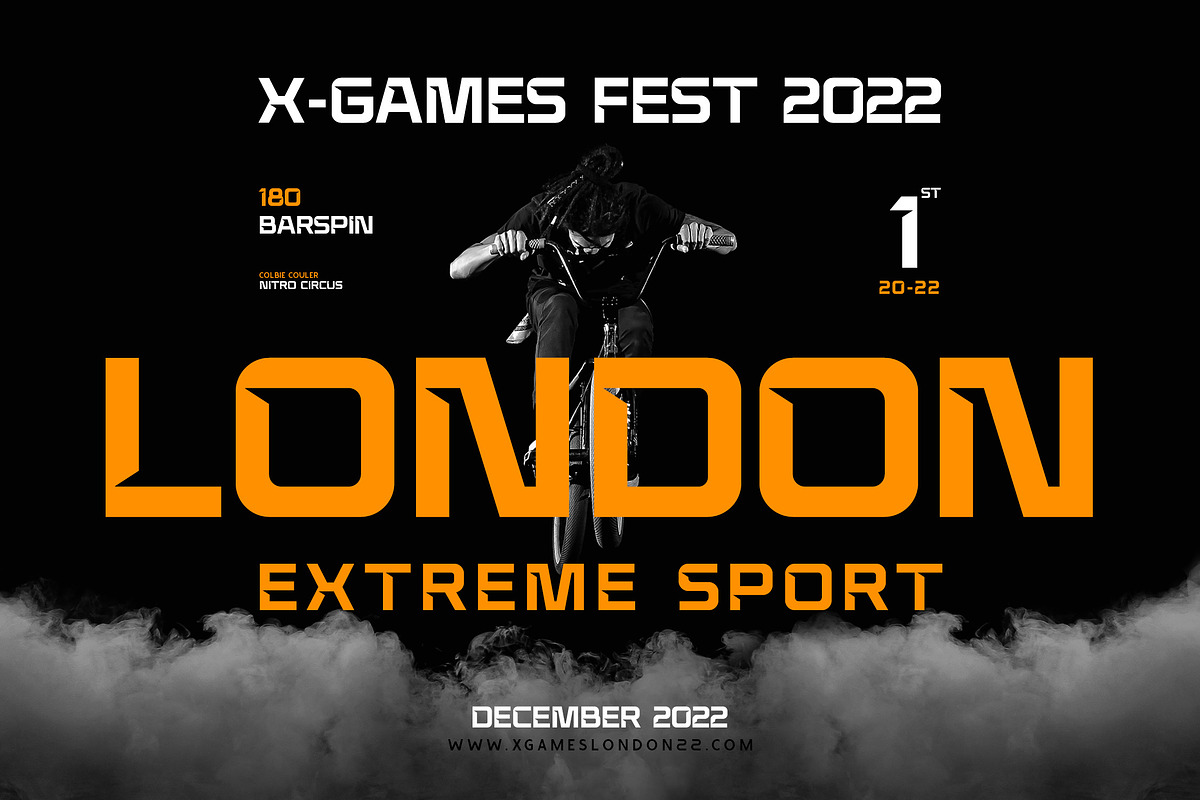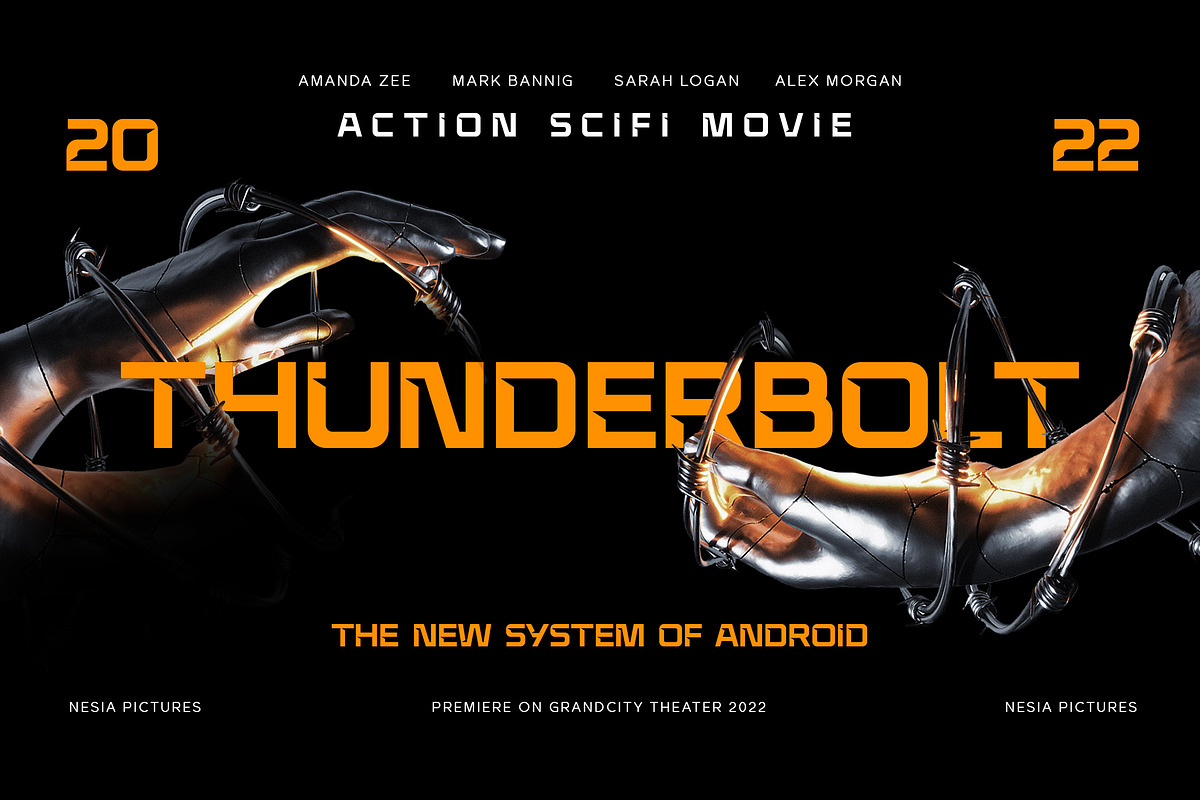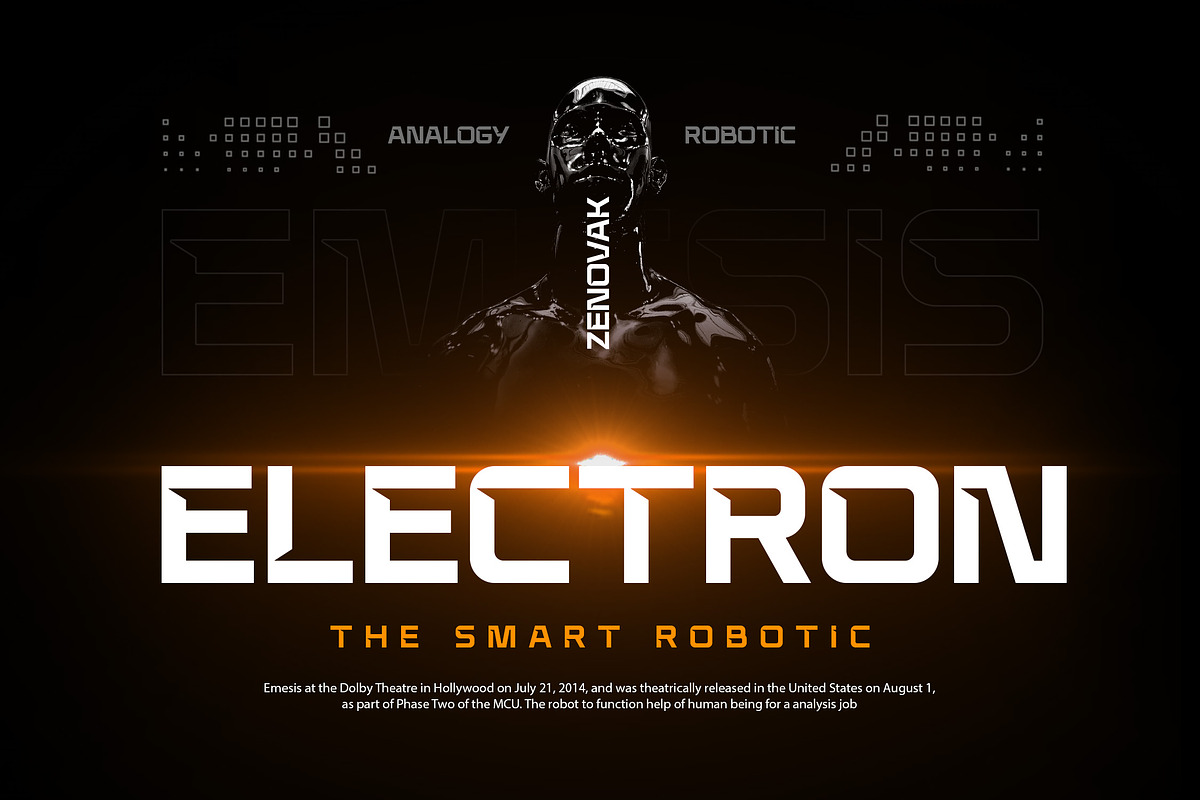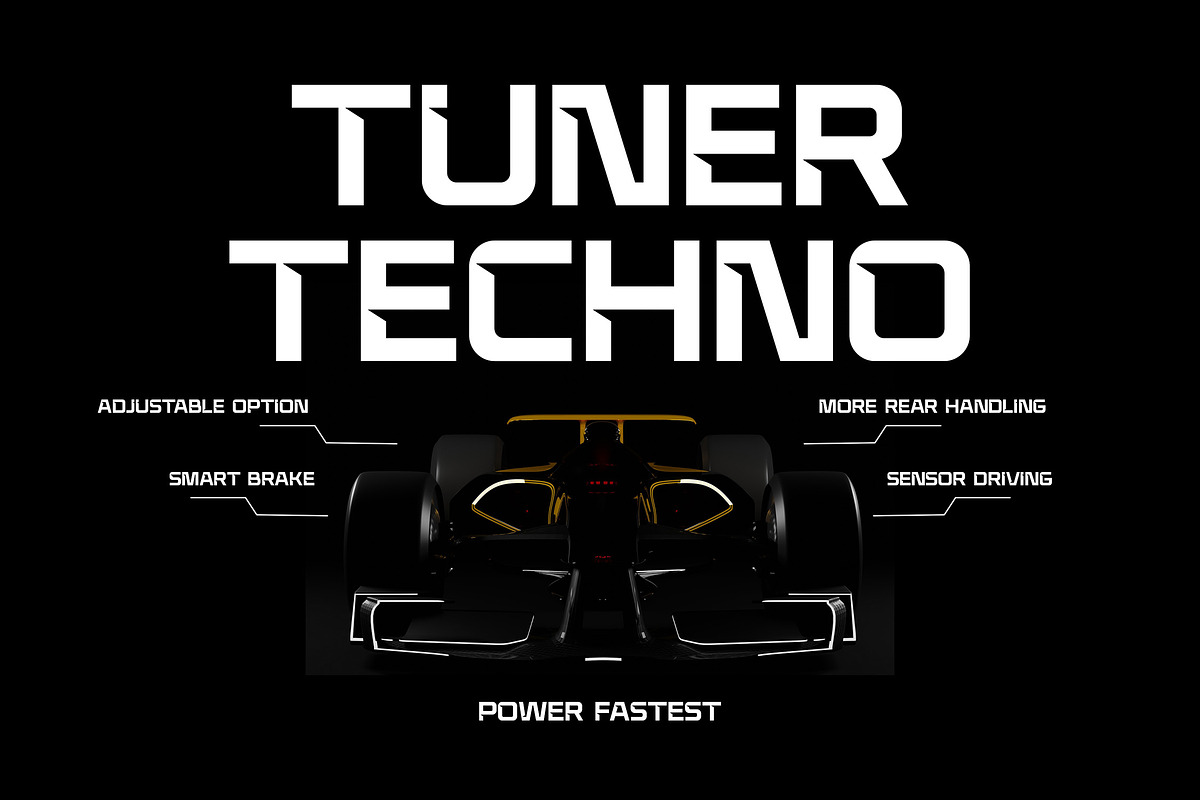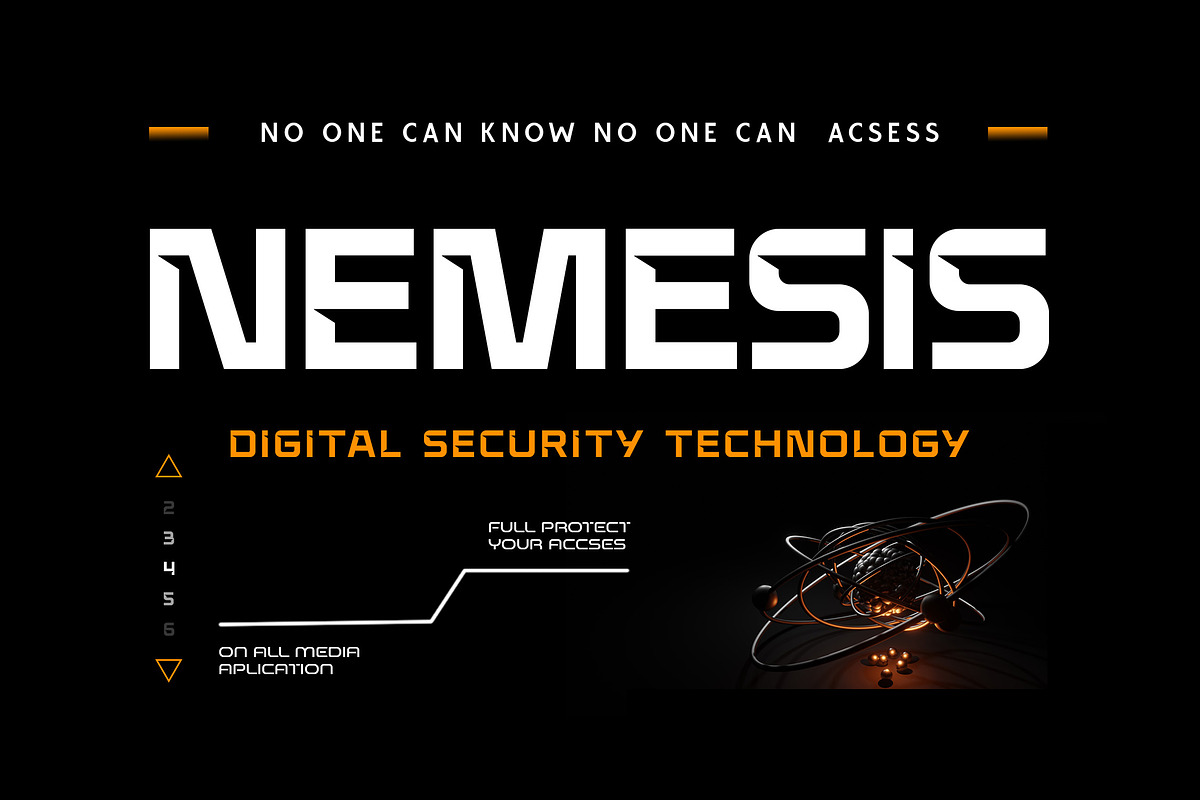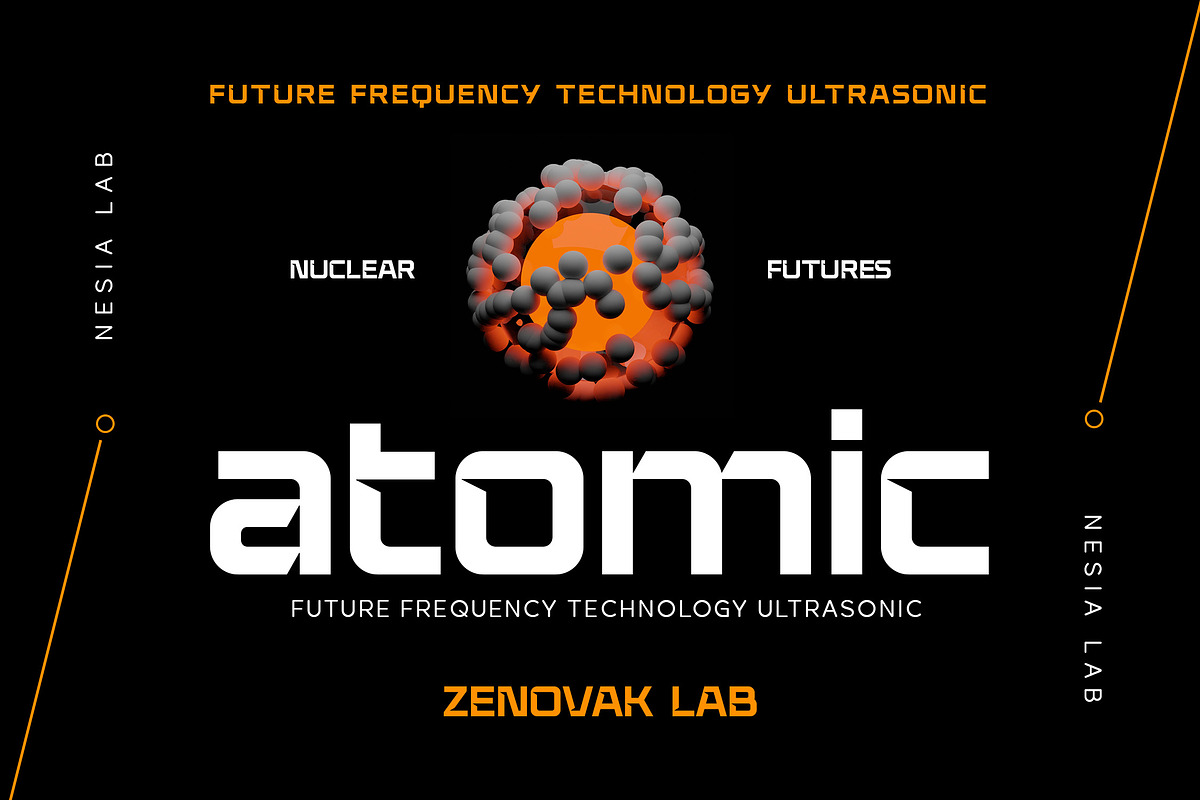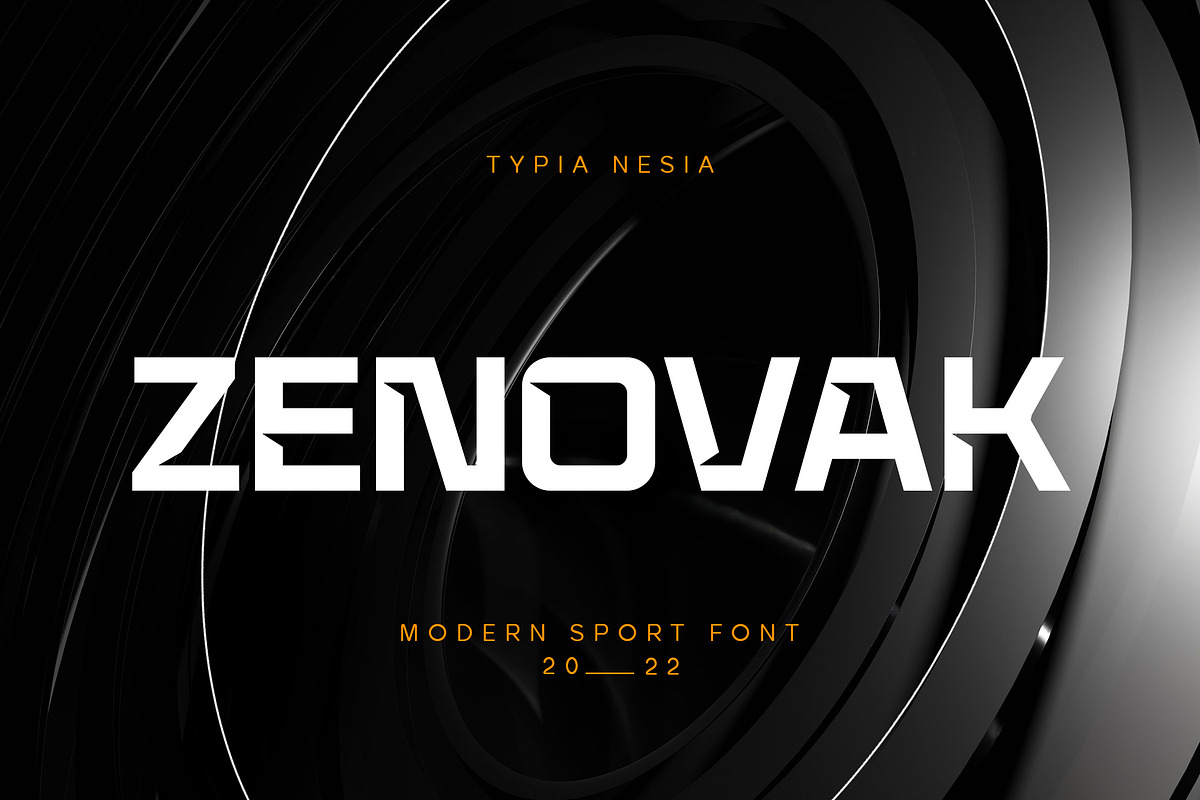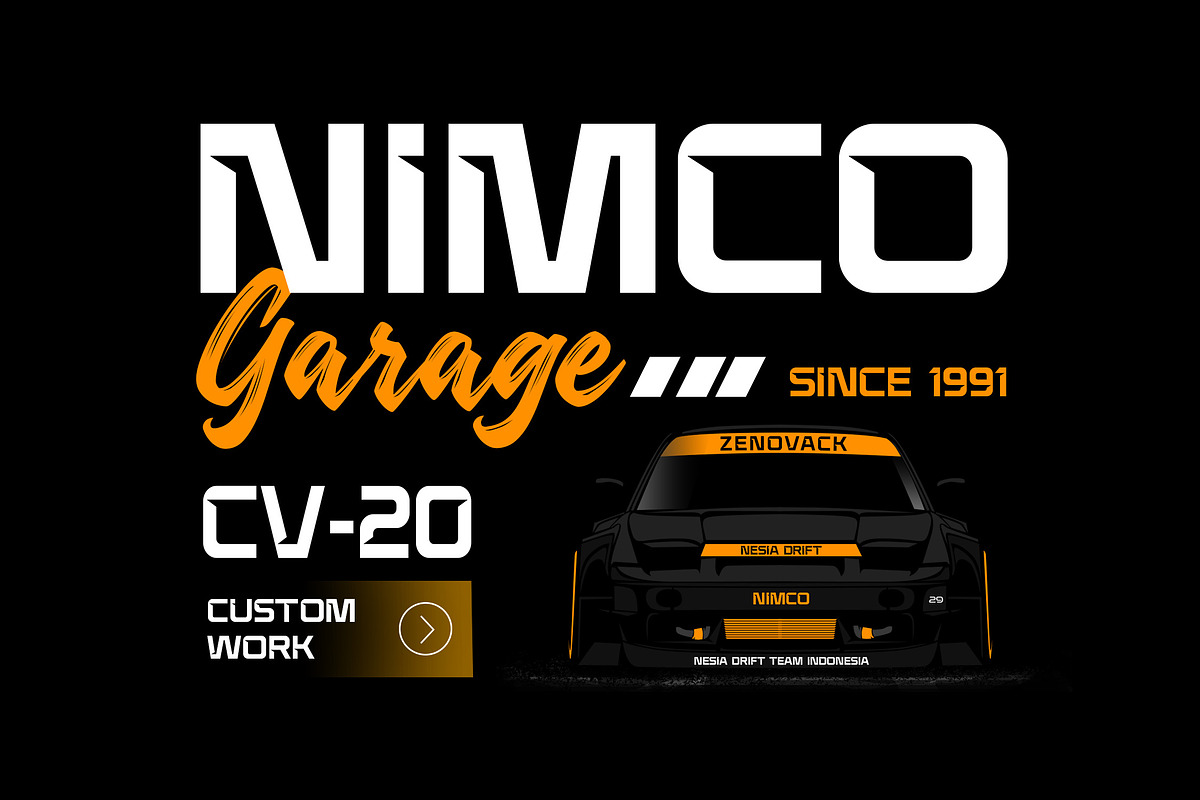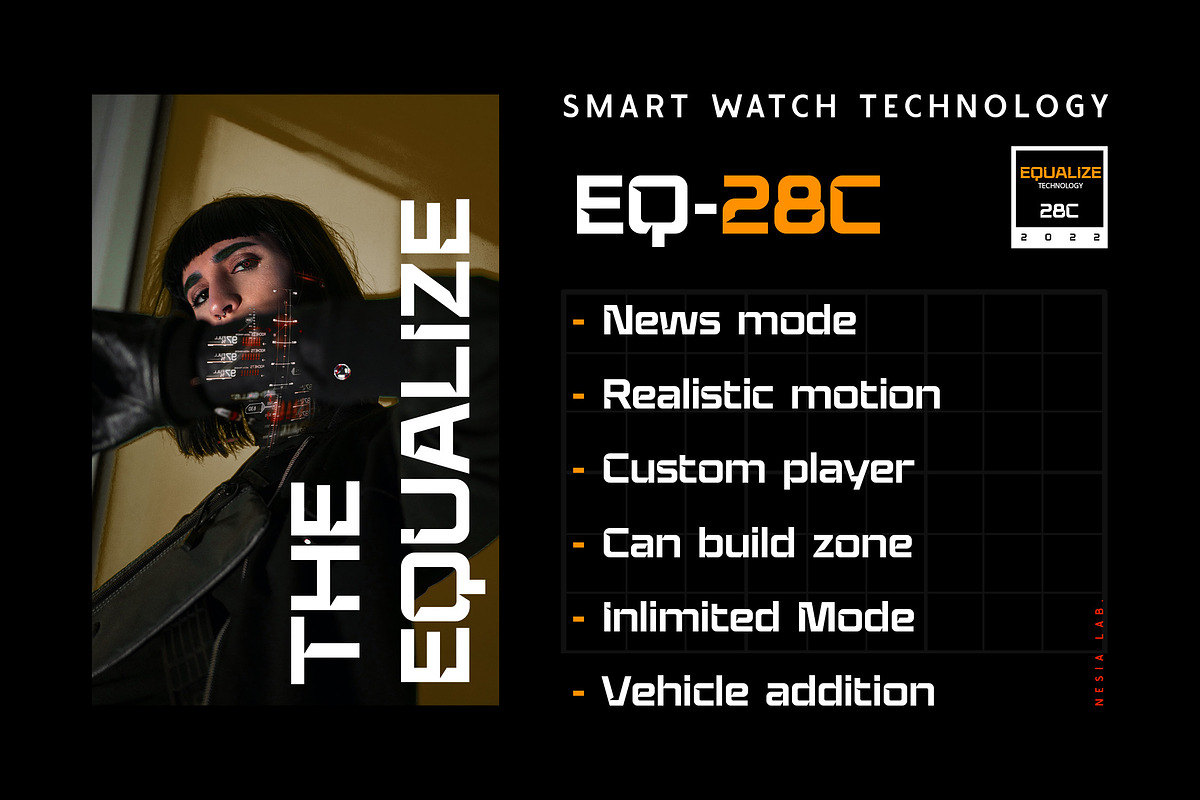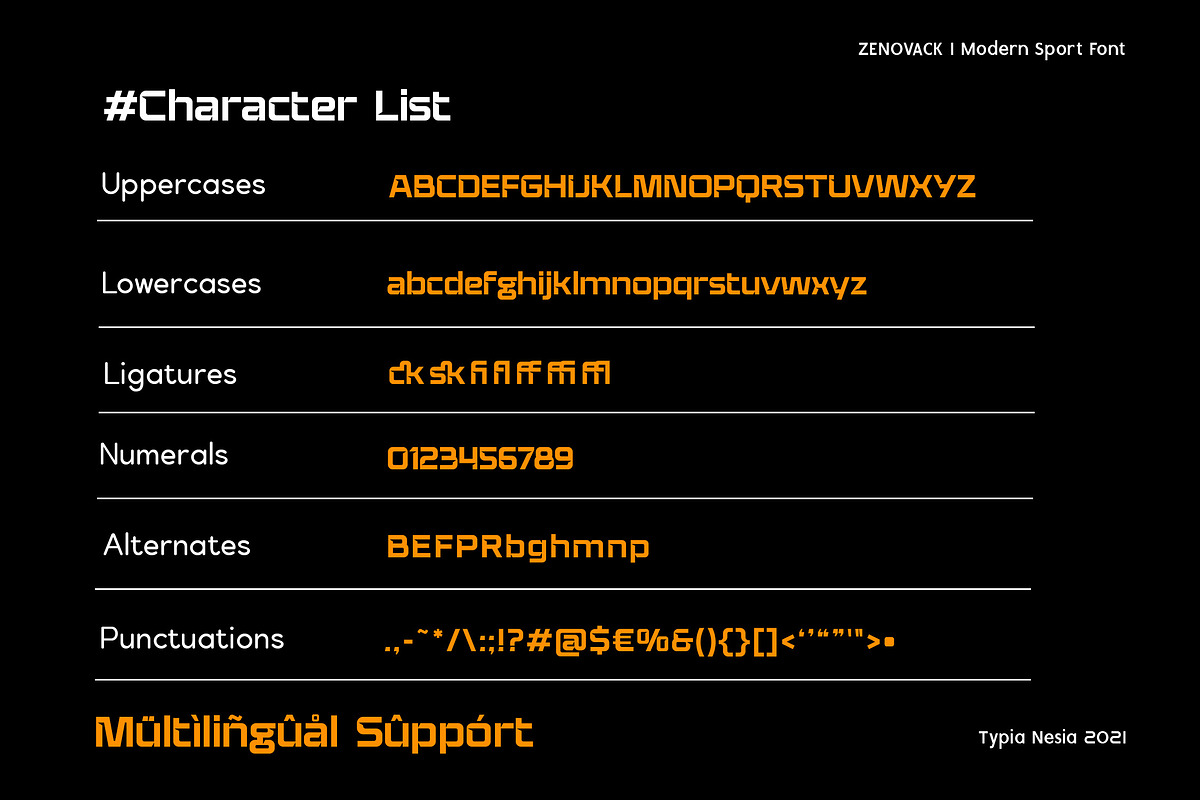
Zenovak
Zenovak - Sport Display Sans Serif Font - Techno Futuristic / Sci-fi Game Font
Zenovak is a Sport Game Sans Serif Display Font is perfect for your up coming projects. Such as logo branding, editorial design, esport design, 80s retro design, game / gaming industry, sport racing, super car brand, esport branding, music poster, website design, modern advertising design, poster quote, book/cover title, special events and any more.